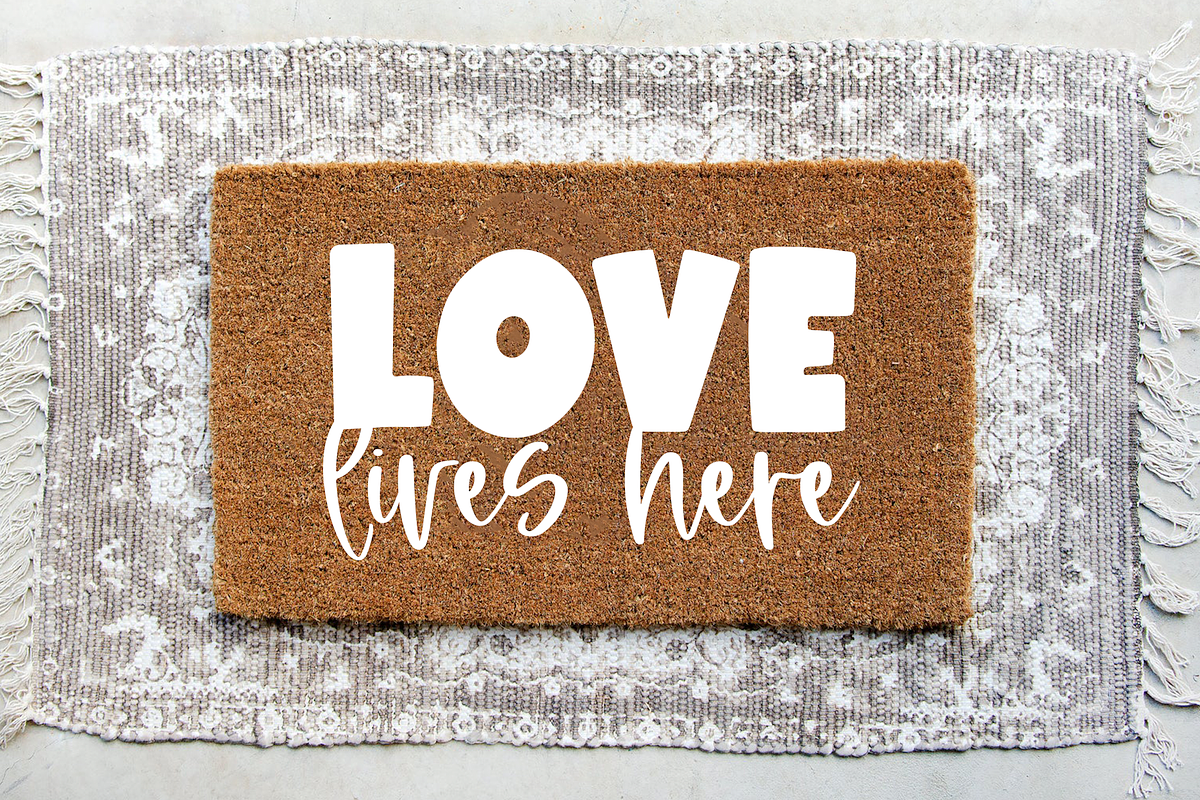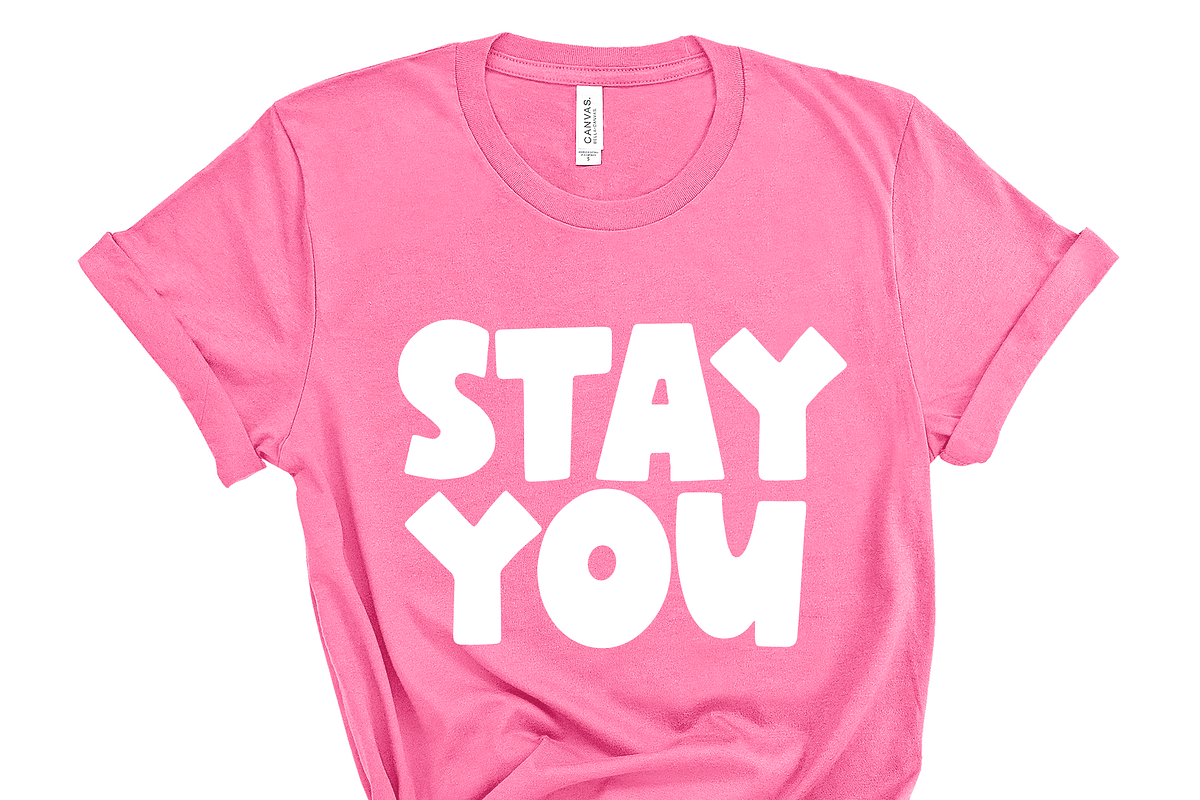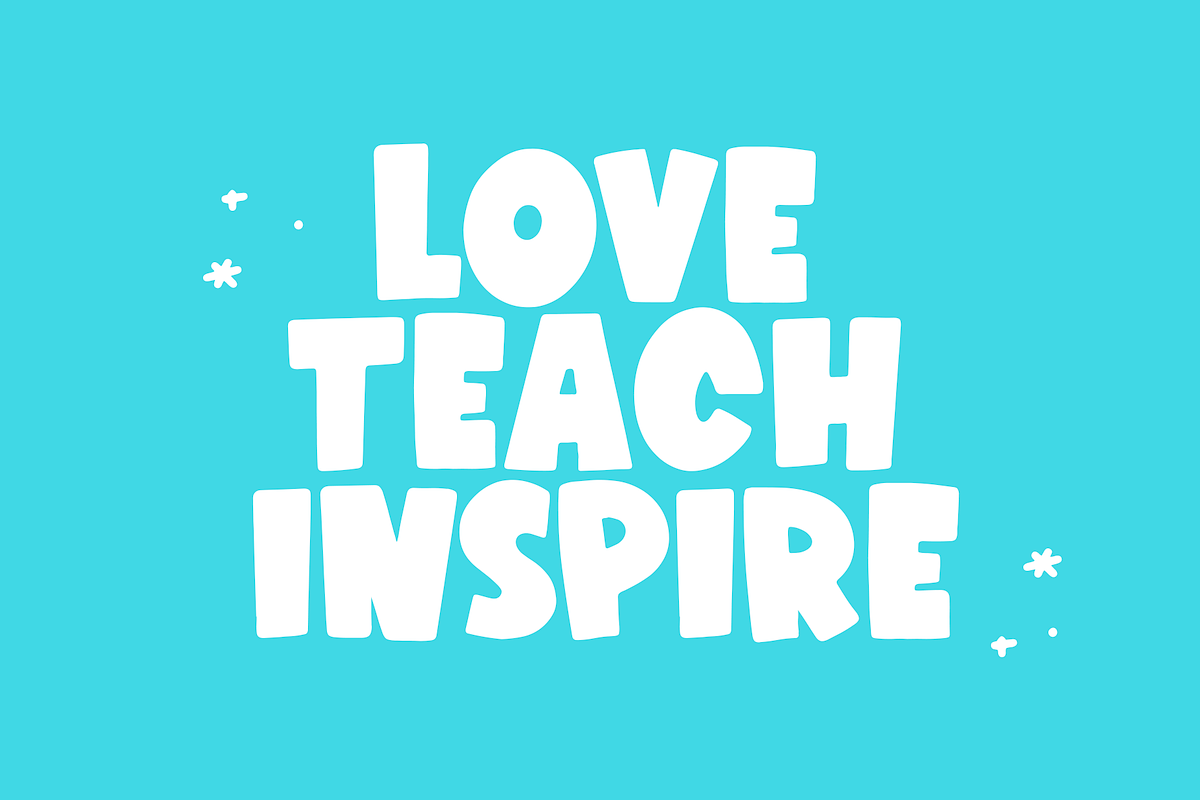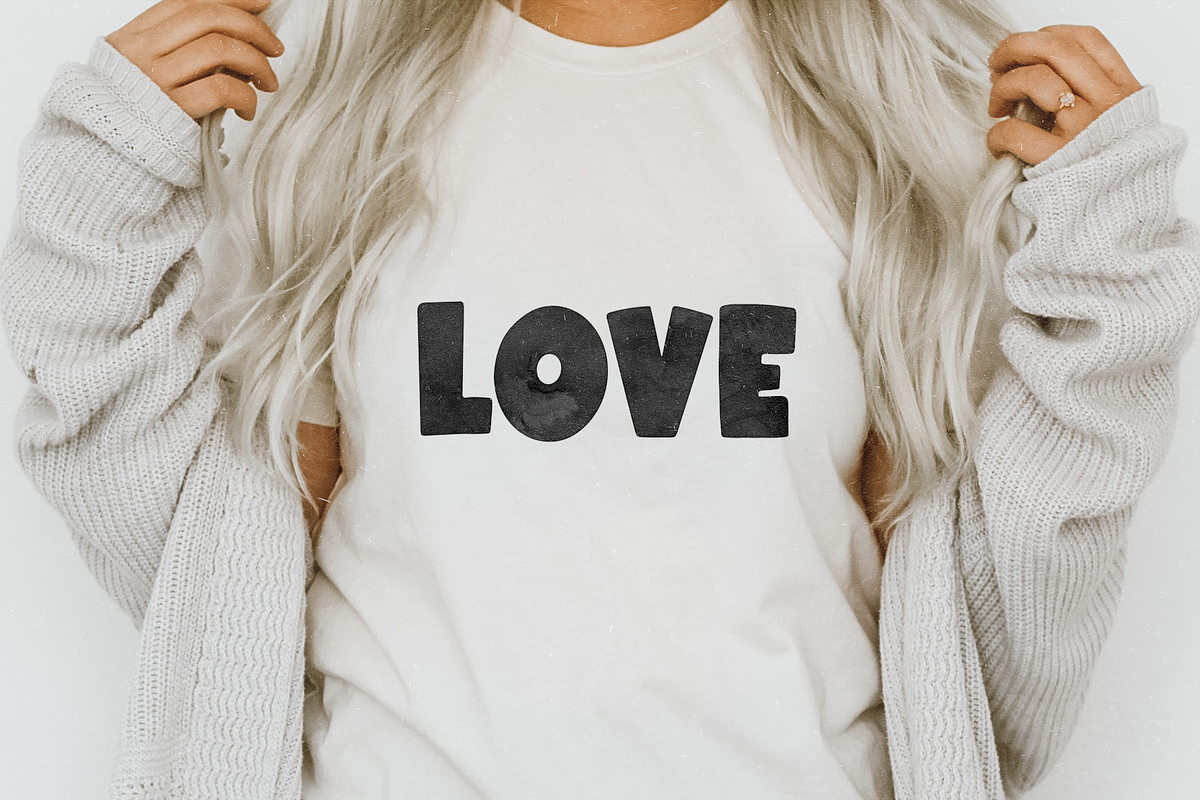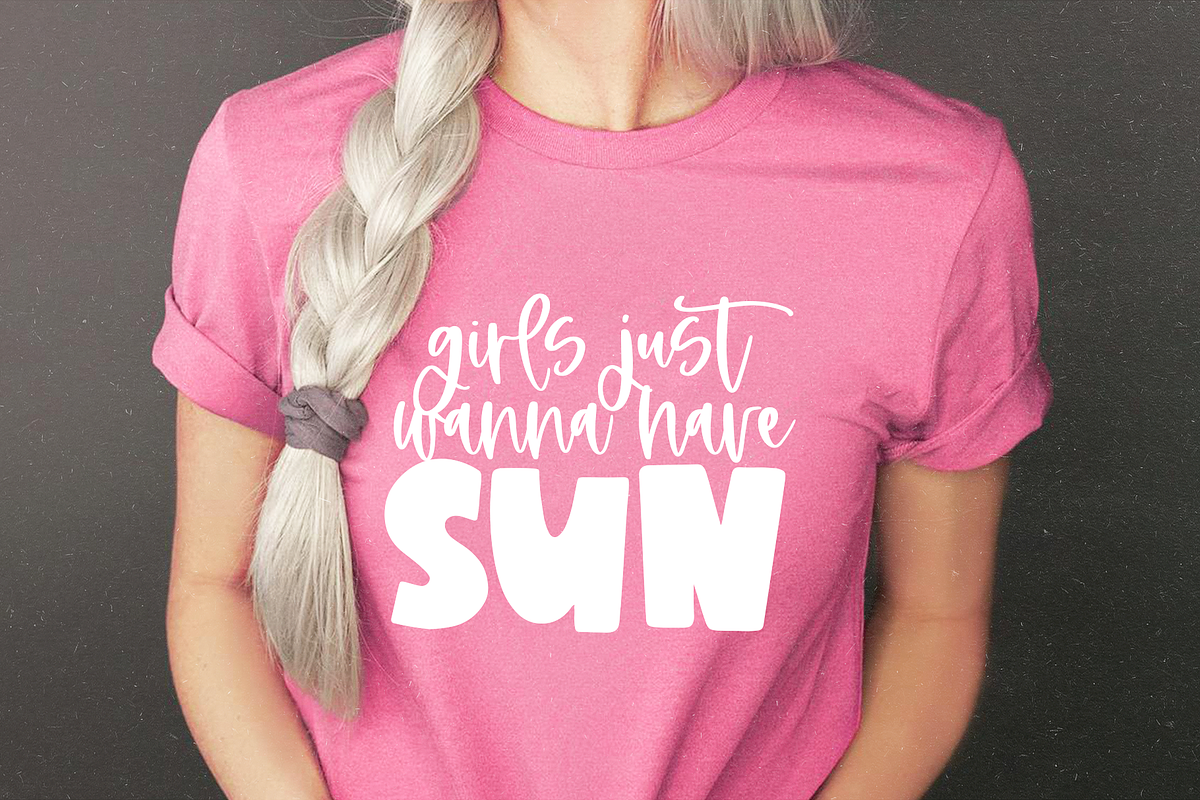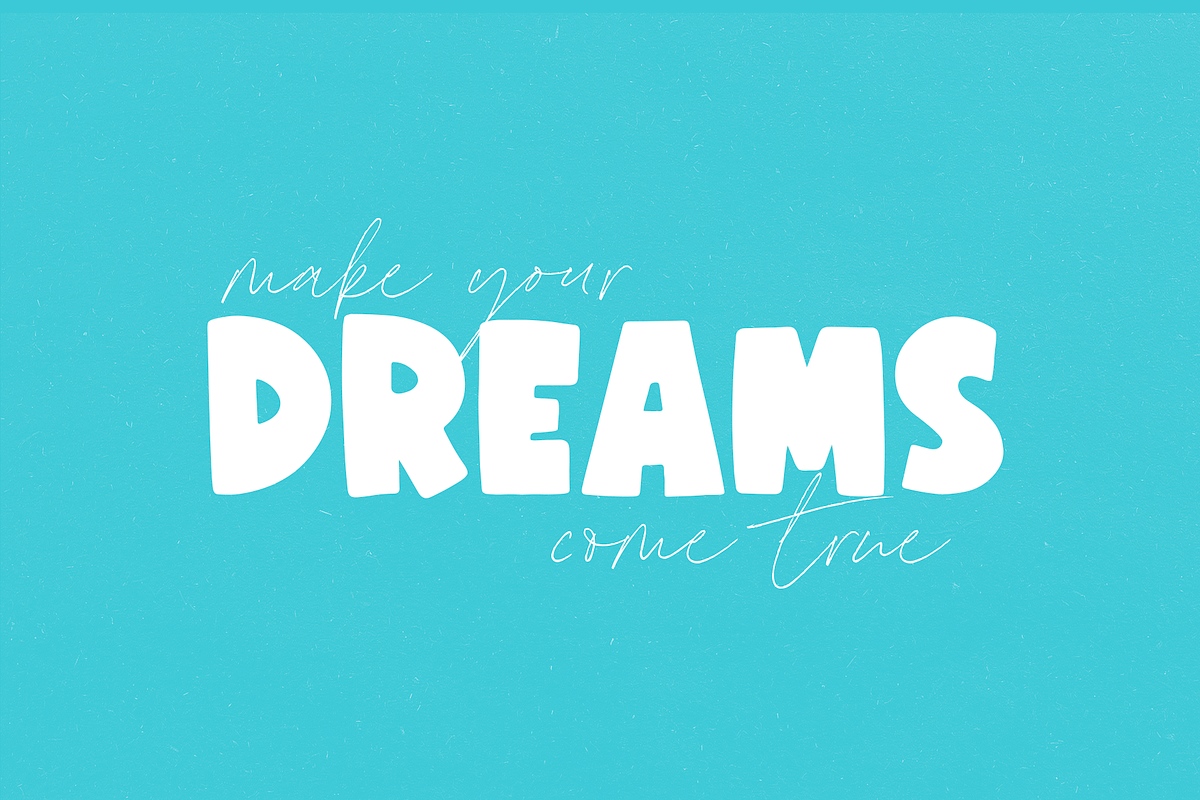
Joyful | Fun Handwritten Font
Joyful is a fun handwritten font.
This is an all caps font.
Joyful is perfect for branding, logos, signs, kid's shirts, svg designs, home decor, social media and more!
Joyful | Fun Handwritten Font by KA Designs fits naturally into Branding, posters, packaging, typography.